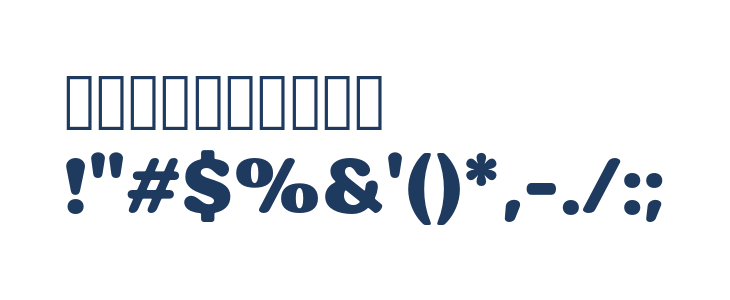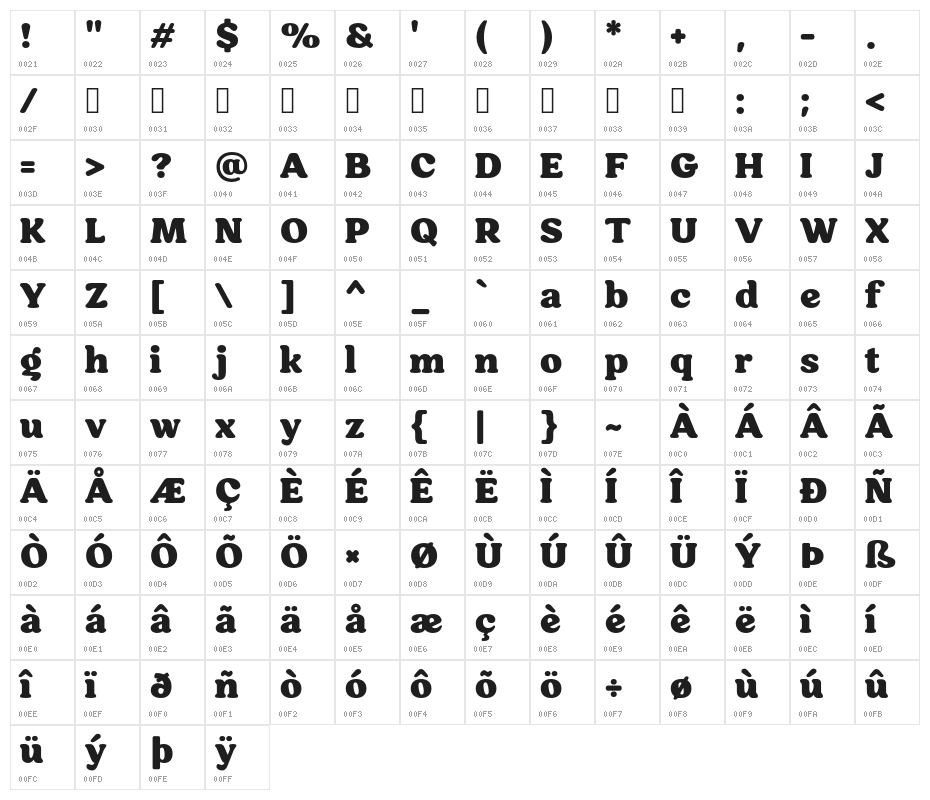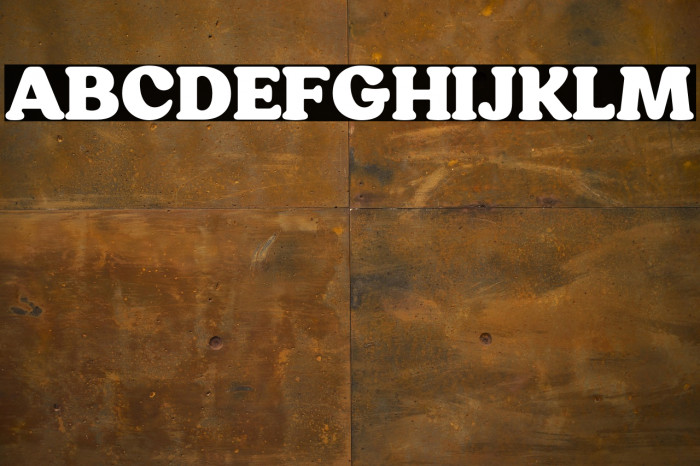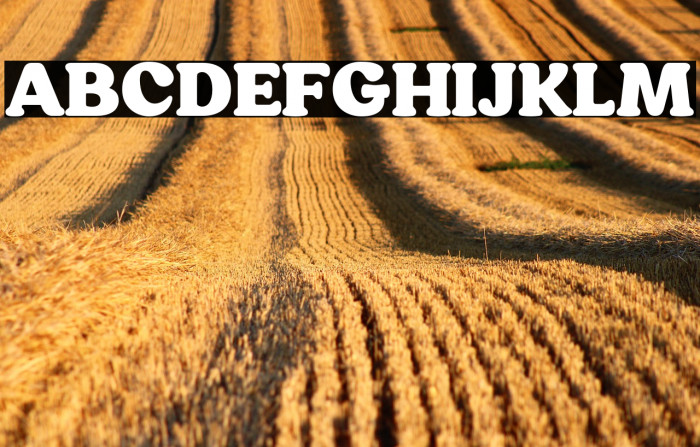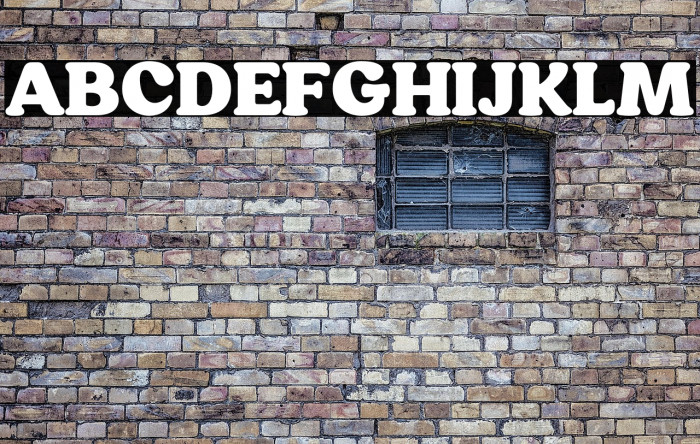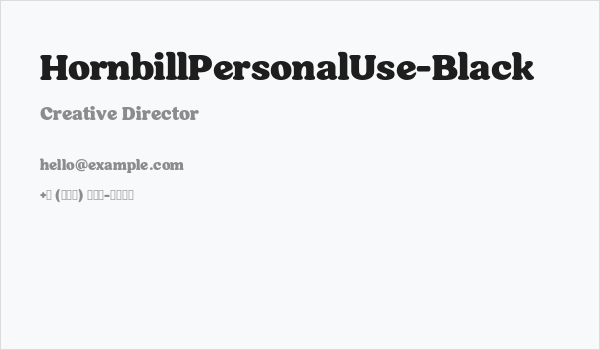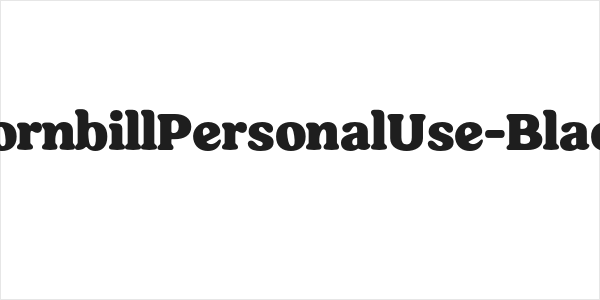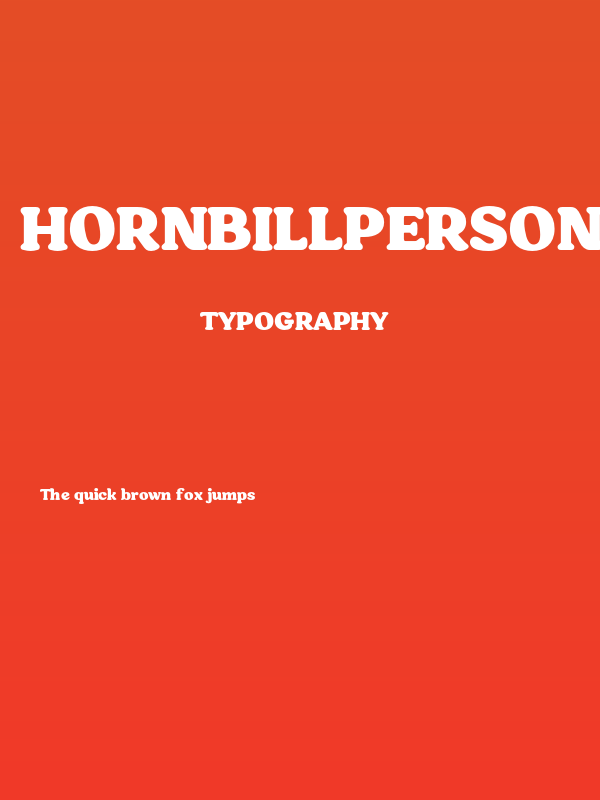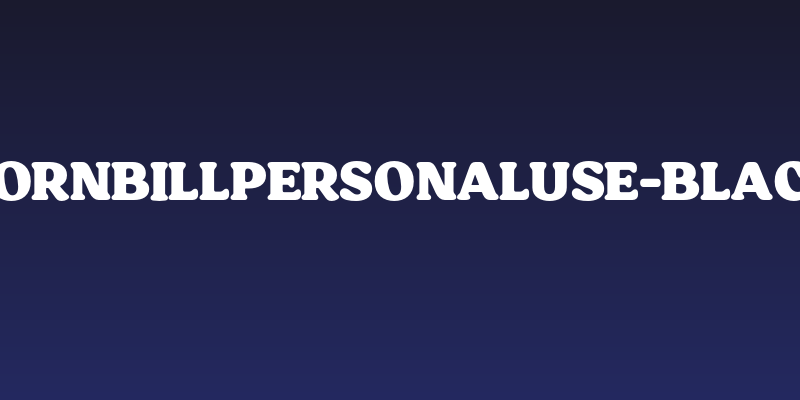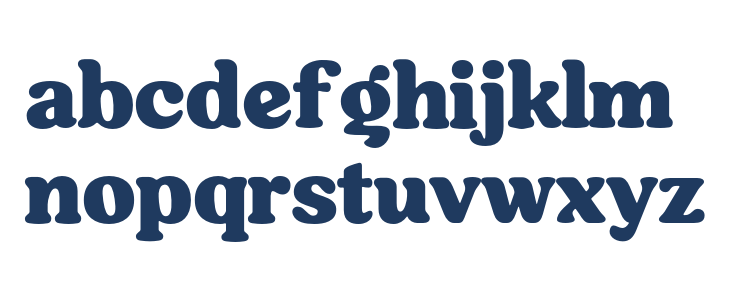
HornbillPersonalUse-Black Font
HornbillPersonalUse-Black Description
This font features bold, rounded characters with a strong and confident presence. The uppercase letters are robust and slightly condensed, giving a powerful and impactful look. The lowercase letters maintain the same boldness, with a playful yet assertive style. The numbers and special characters are consistent with the overall bold aesthetic, ensuring uniformity across all text elements. The font's design is suitable for making statements, with its thick strokes and rounded edges providing a friendly yet commanding appearance.